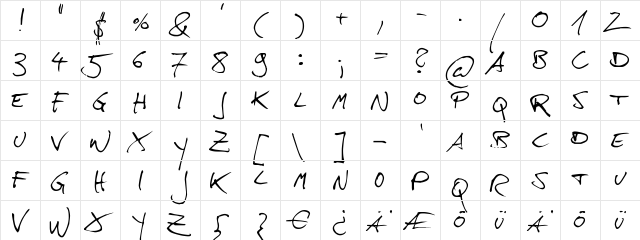
hans hand Font Preview
Design Context for hans hand Typeface
hans hand brings a calligraphic fluidity to the page — its connecting strokes and expressive curves give it an unmistakably human quality.